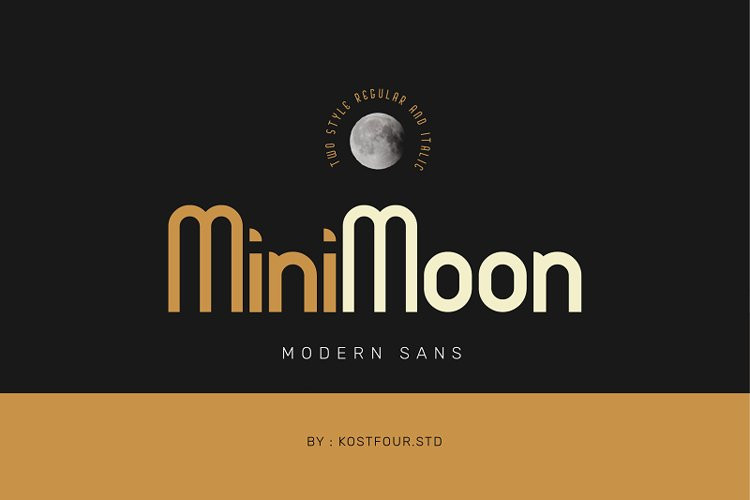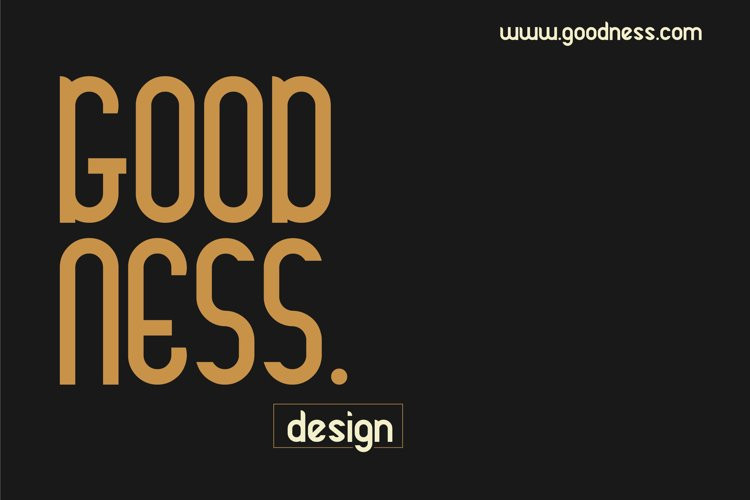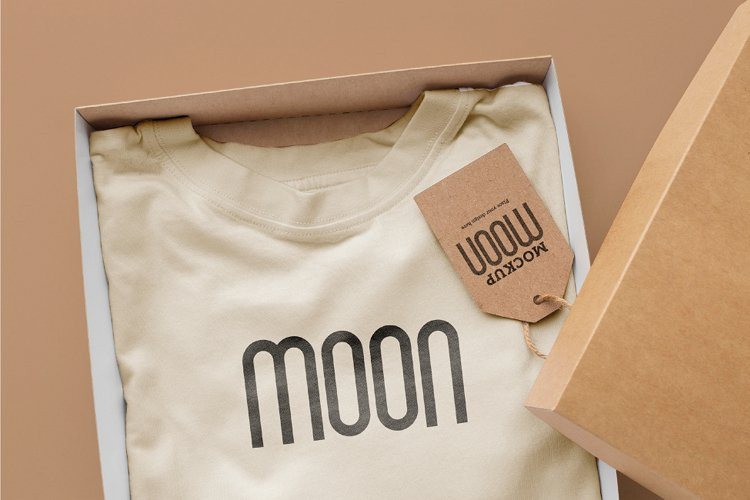
Minimoon Font
Minimoon FontMiniMoon is a modern sans display typeface. Perfect for your design ideas with the theme of Home Decorating, Home Idea, and is also very suitable as a complementary font for any of your photography and creative works, poster, quotes, film, craft needs, book cover, business card, packaging, merchandise, branding, logo, logotype, header, title, and many more.